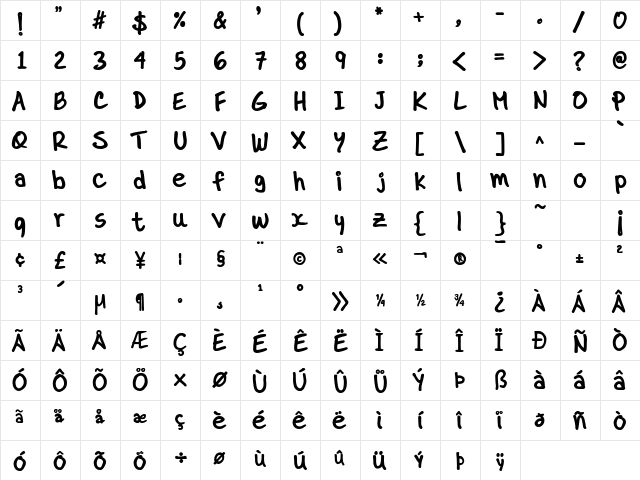
Dr.Marz Bold
Design Context for Dr.Marz Typeface
Dr.Marz is a composed and adaptable typeface that performs quietly and consistently across a wide range of design contexts. Its bold stroke weight gives it real presence on the page.